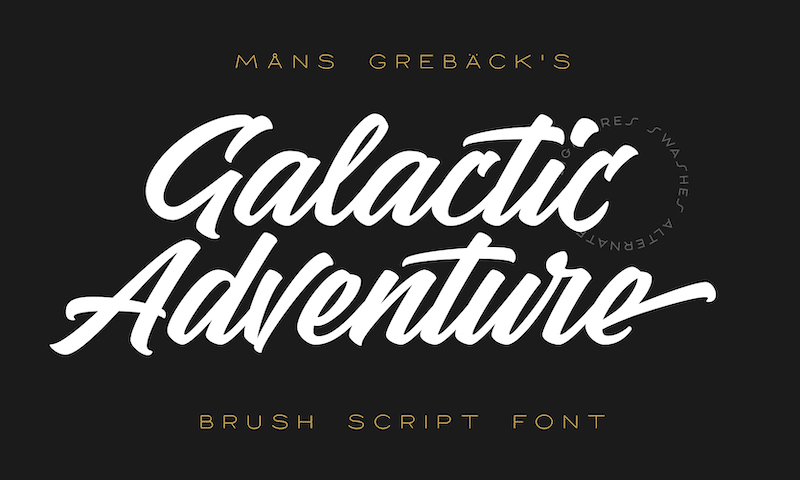
Preview and download Galactic Adventure Font. Created by Måns Grebäck in Script Brush styles with Free for personal use license.
NOTE: This font is for PERSONAL USE ONLY! To purchase a commercial license, visit: http://mn.sg/galactic-adventure Galactic Adventure is a calligraphic brush font with a retro twist, inspired by the expressive movement and boldness of vintage advertisements. Use underscore _ to make a underline. Example: Co_ol Use multiple underscores for longer swashes. Example: Super____human For questions, please visit www.mansgreback.com/faq |